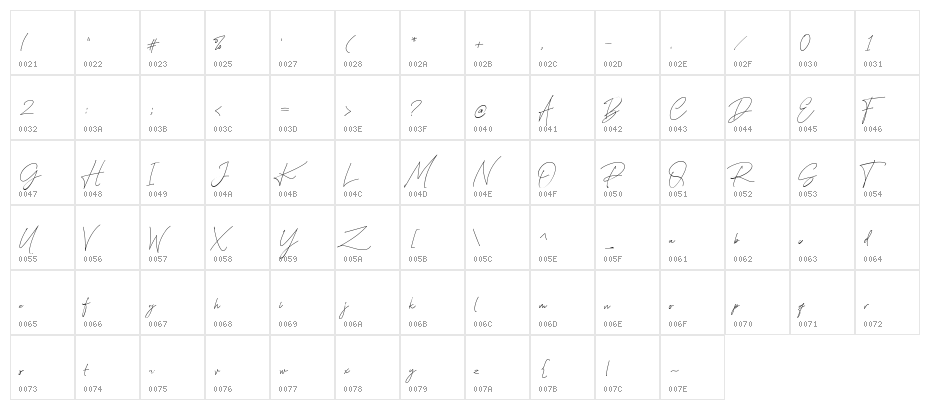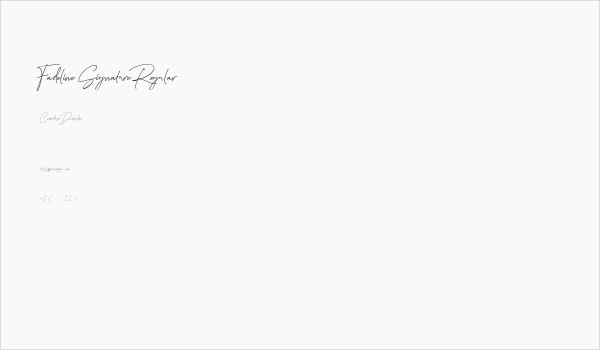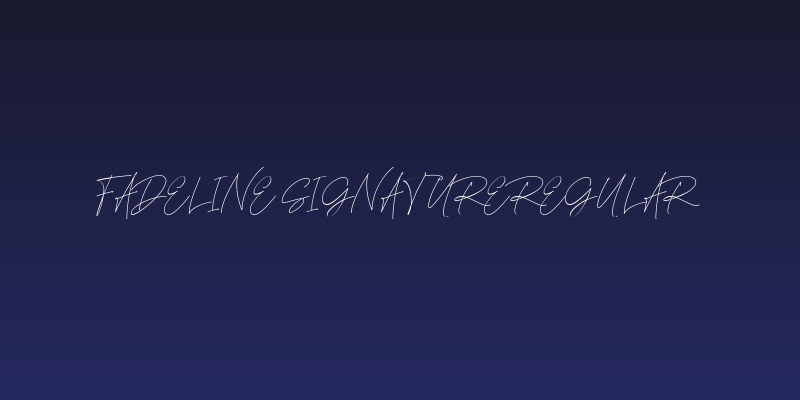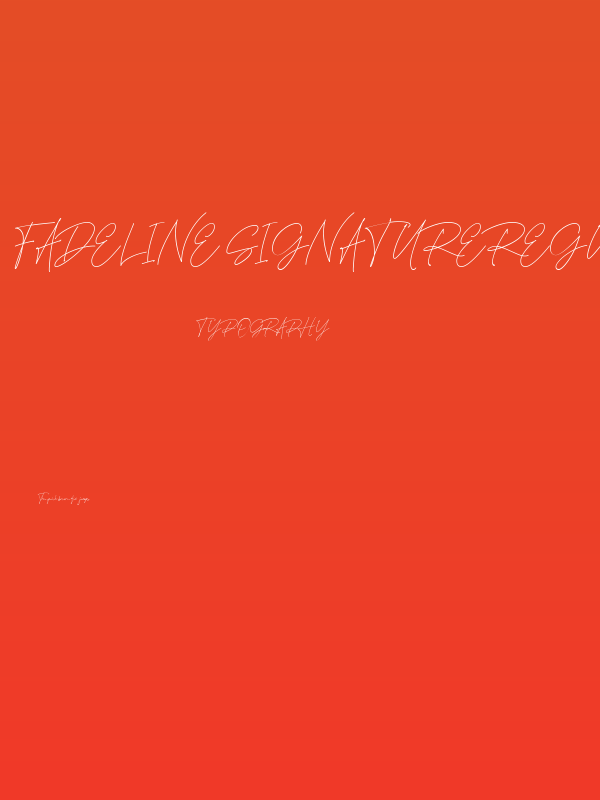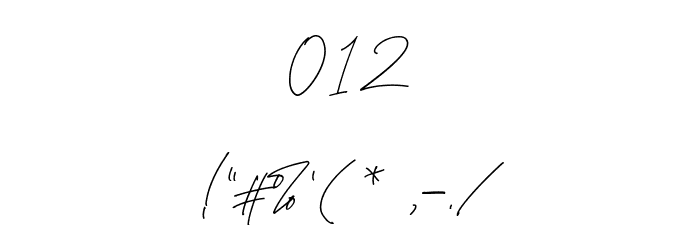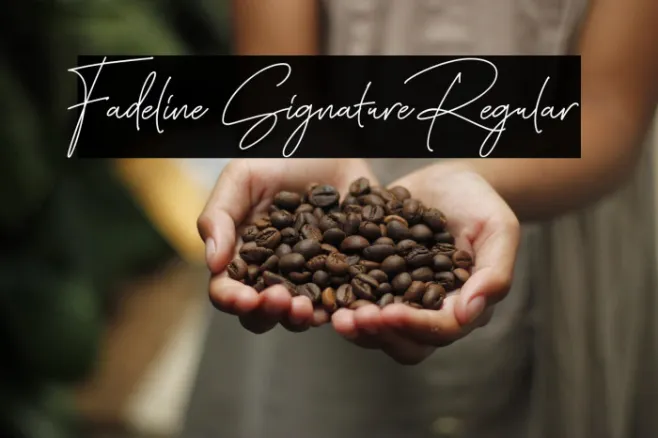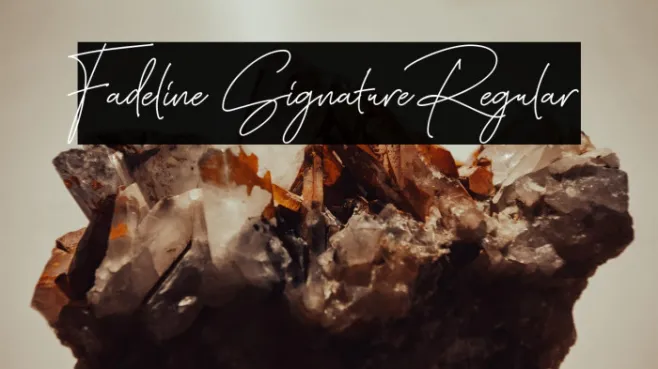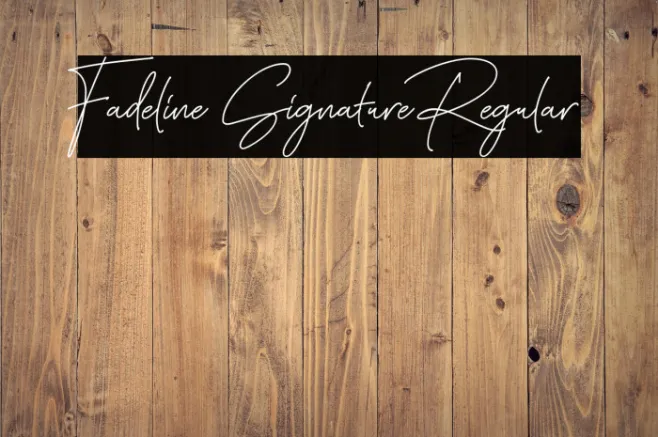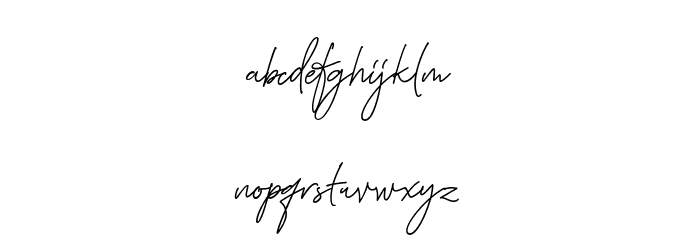
Fadeline Signature Regular Font
Fadeline Signature Regular Description
This font exudes elegance and sophistication with its flowing, cursive style. The letters are interconnected, creating a seamless and fluid appearance that mimics the natural movement of handwriting. The strokes are thin and delicate, adding a touch of refinement and grace. The uppercase letters are slightly more elaborate, with extended loops and flourishes, while the lowercase letters maintain a consistent, smooth flow. The numbers and special characters are designed to complement the overall aesthetic, maintaining the same thin, elegant lines. This font is perfect for projects that require a personal, handwritten touch, such as invitations, greeting cards, or branding materials.